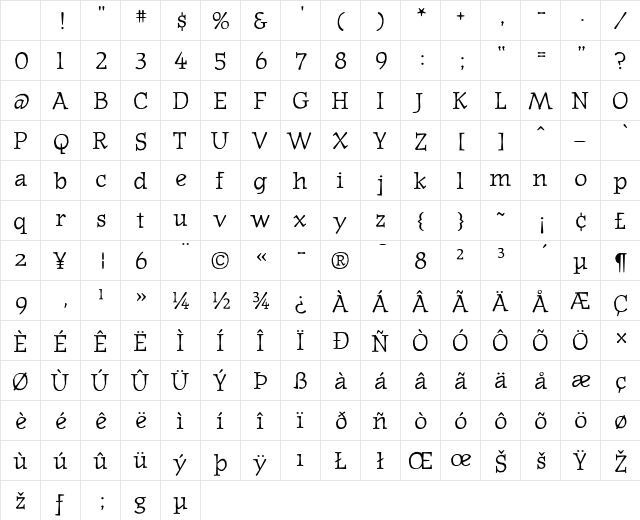
JournalText is a composed and adaptable typeface that performs quietly and consistently across a wide range of design contexts.
Who designed the JournalText Medium font?
This font was published by C) Emigre Graphics, designed by Zuzana Licko. Check the technical specs section for copyright and designer details.